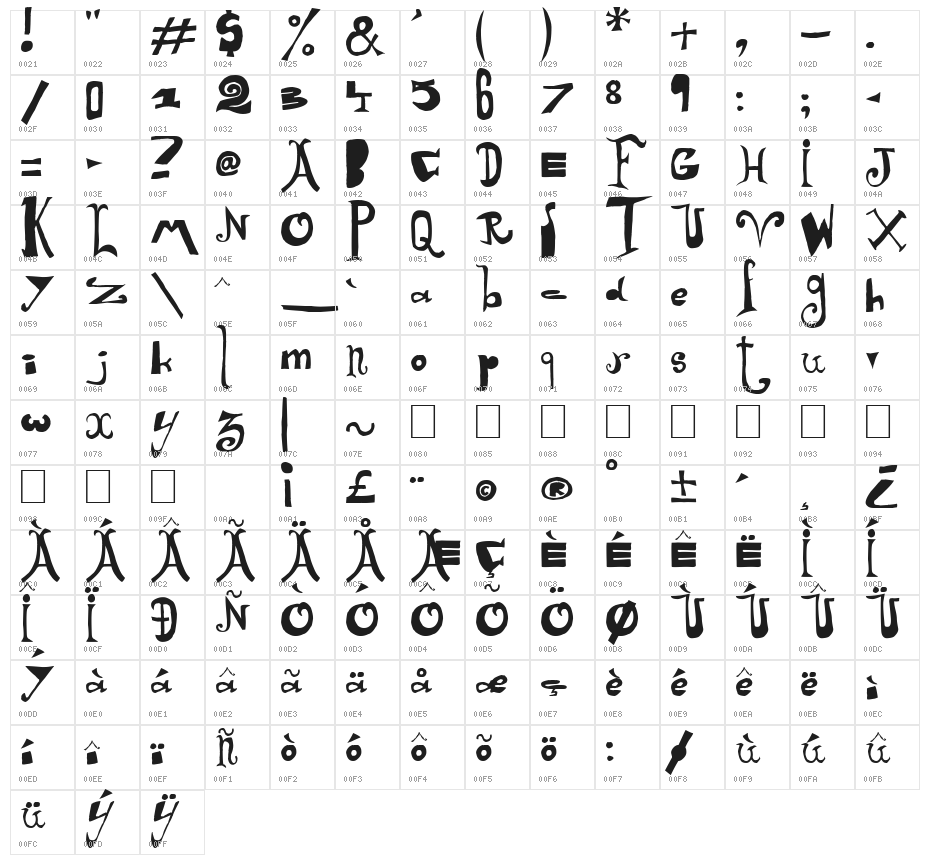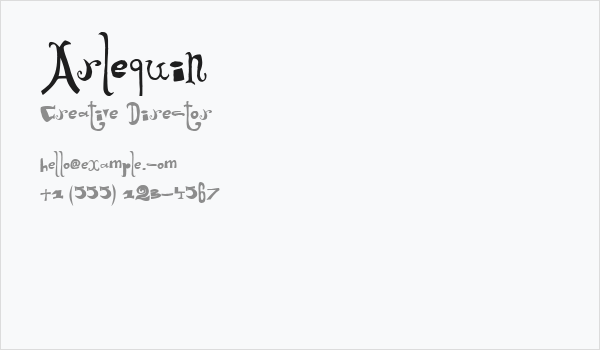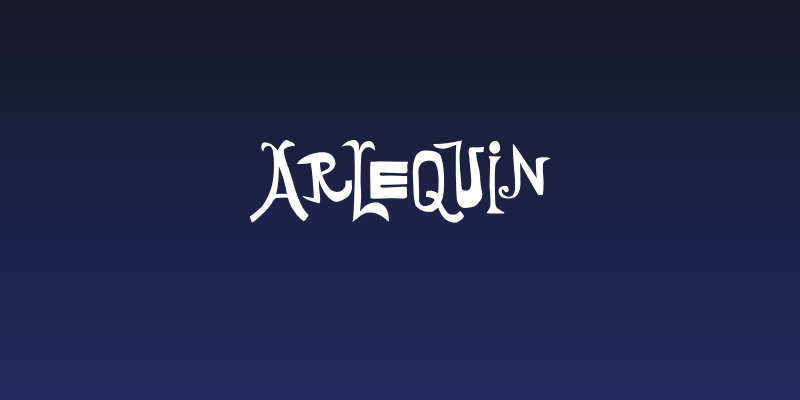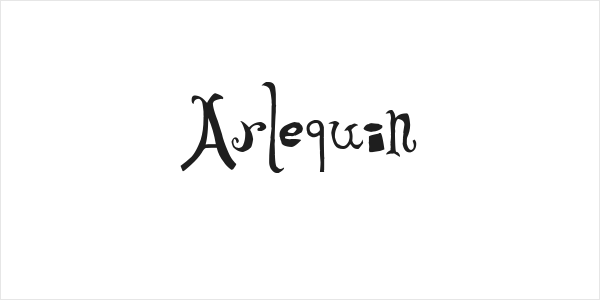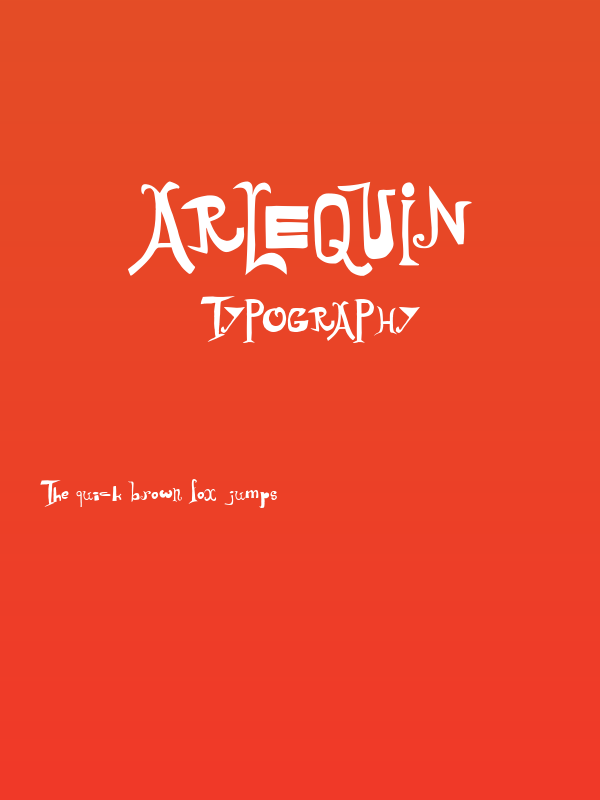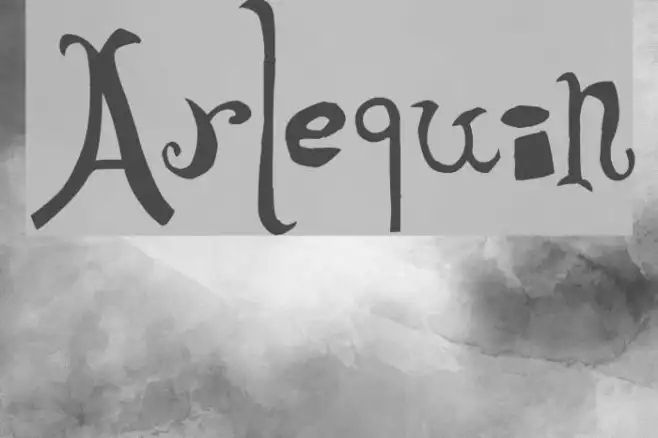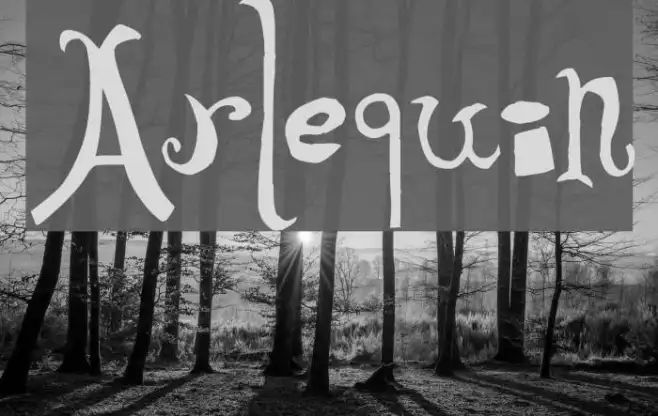
Arlequin Font
Arlequin Description
This font exudes a playful and whimsical character, with each letter exhibiting a unique and artistic flair. The uppercase letters are bold and varied in form, with some featuring exaggerated serifs and others showcasing a more angular design. The lowercase letters continue this eclectic style, with a mix of curves and sharp angles that create a dynamic visual rhythm. Numbers and special characters are equally expressive, contributing to the font's overall lively and unconventional appearance. The font's design is reminiscent of a hand-drawn style, making it perfect for projects that require a touch of creativity and individuality.
| Use Case | Headlines, Logos, Artistic projects |
| Proposed Projects | Ideal for creative projects such as children's books, playful branding, artistic posters, and unique invitations. |